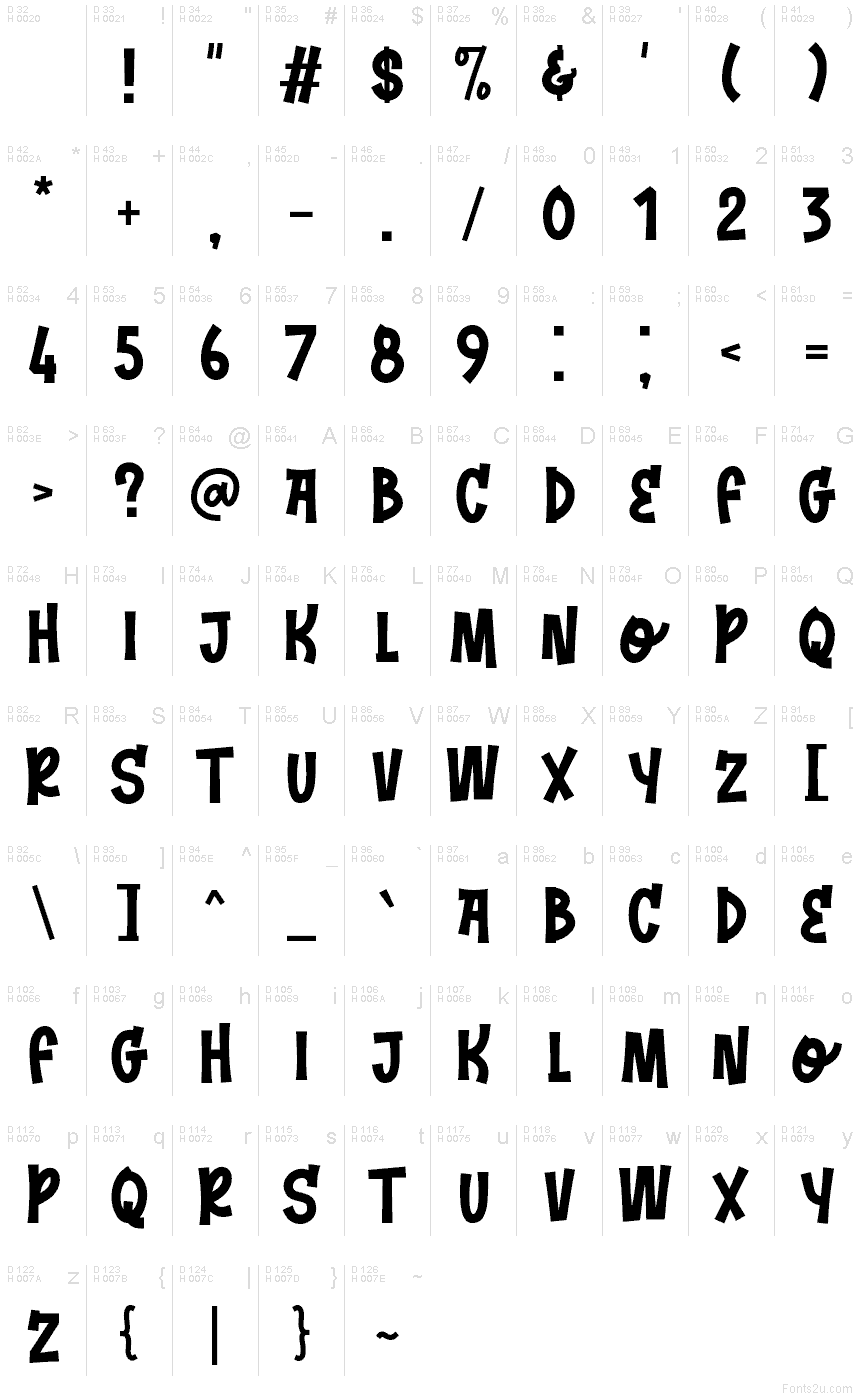
Dream Shore
Dream Shore font by Dm Letter Studio - Dimas Prasetyo is a free bold cartoon font. It stands out with hand-cut, tiki‑like strokes: chunky wedges, bouncy rhythm, and sharp little notches that feel like torn paper and sun‑bleached signage. The letters lean and swing with lively contrast, giving headlines a cheeky, beach‑bar swagger without losing legibility.
Using Dream Shore, titles snap to attention on beach party posters, surf or skate branding, kids’ book covers, snack packaging, festival badges, and YouTube thumbnails. This free font loves big sizes and generous spacing; pair it with a clean rounded sans to keep copy grounded and let the playful shapes do the talking.